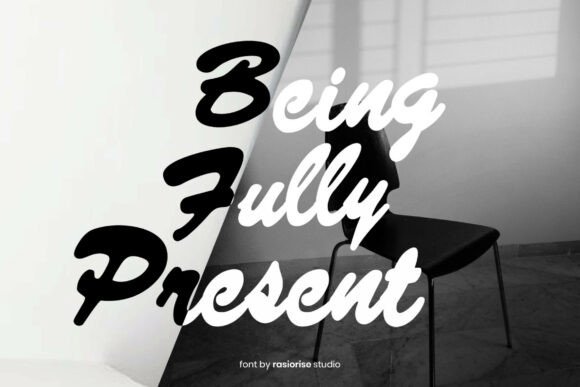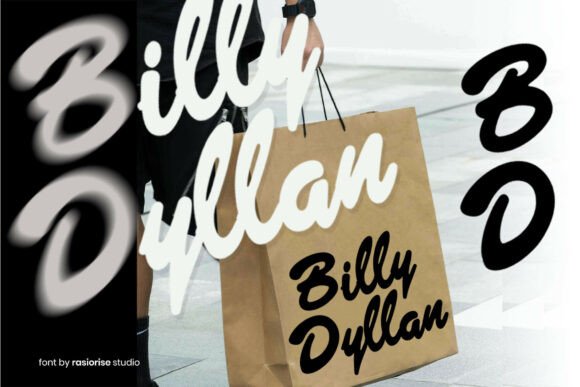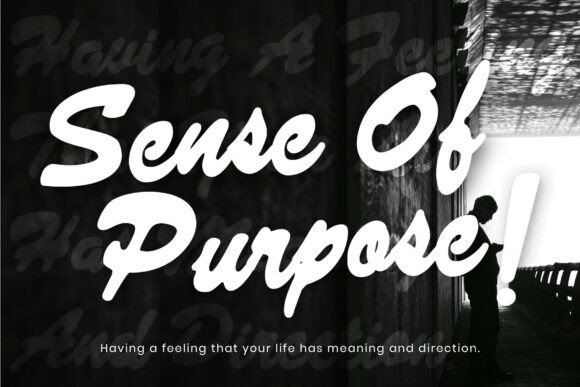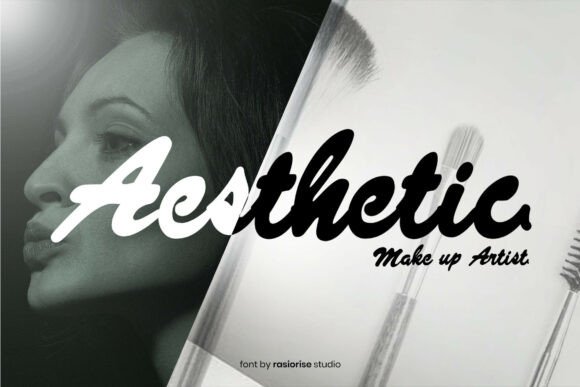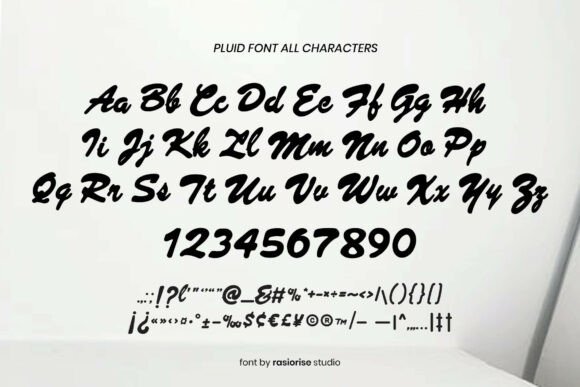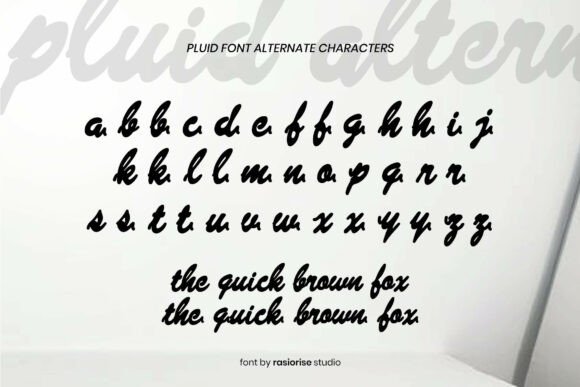
Introduction to Pluid Font
Have you ever stared at a blank page, waiting for the perfect font to inspire your creative project? The moment when the words start flowing and the design begins to take shape is a magical one. As designers, we’ve all been there – searching for that one special font that brings our ideas to life. Today, we’re excited to introduce you to Pluid Font, a bold and playful handwritten script style that’s sure to add a touch of personality to your next project.
With its unique blend of flowing curves and strong strokes, Pluid Font is the perfect design resource for anyone looking to add a touch of whimsy to their work. Whether you’re designing logotypes, book covers, or wedding invitations, this high-quality font is sure to make your project stand out. And the best part? It’s available for free download, so you can start experimenting with Pluid Font right away – even on designs with a transparent background.
Key Features of Pluid Font
- High-quality, professional design resource ideal for creative projects.
- Comes in a single font size, making it versatile for use in a variety of applications.
- Designed to be highly legible, making it perfect for use in headings, titles, and body text.
Honest Review: Pluid Font
As a designer, I’m always on the lookout for high-quality fonts to elevate my creative projects. The Pluid Font caught my attention, and I was excited to give it a try.
- ✨ High-quality design: The Pluid Font boasts a unique, modern aesthetic that’s perfect for a variety of creative projects.
- ⚠️ Limited font styles: While the Pluid Font is well-designed, it’s available in a limited number of styles, which may not be suitable for all projects.
- ⚠️ Not ideal for small text: Due to its unique design, the Pluid Font may not be the best choice for small text, as it can become difficult to read.
Overall Impression:
The Pluid Font is a solid addition to any designer’s arsenal. While it has its limitations, its unique design and free availability make it a great resource for creative projects. I’d definitely recommend it for larger text and design elements, but be cautious when using it for small text.
How to Use Pluid Font
Pluid Font is a versatile and high-quality design resource suitable for various creative projects. It offers a transparent background, making it ideal for overlaying text or graphics.
Using Pluid Font in Creative Projects
Getting the Most Out of Pluid Font
To get the most out of Pluid Font, experiment with different font sizes, colors, and styles. Combine it with other design elements, such as graphics and images, to create visually appealing designs.
Pluid Font is suitable for various creative projects, including:
- Brand identity and logo design